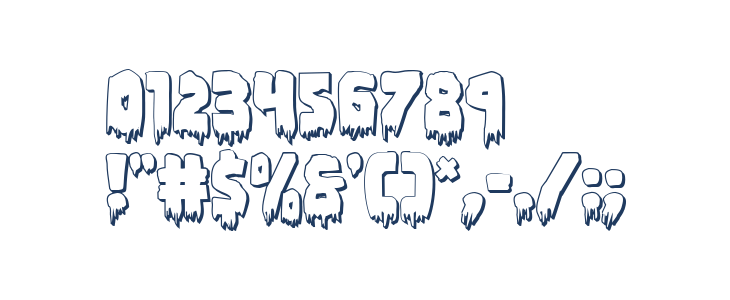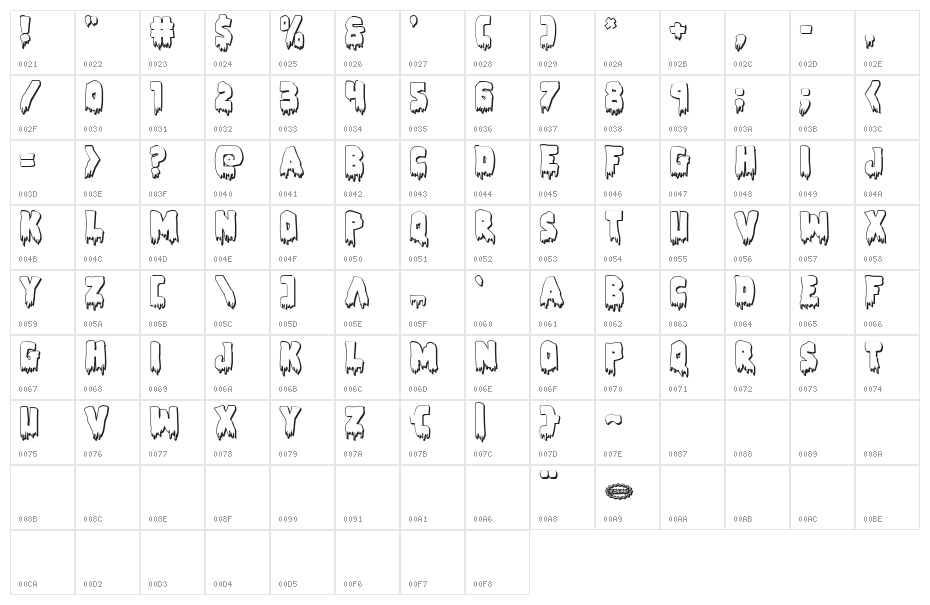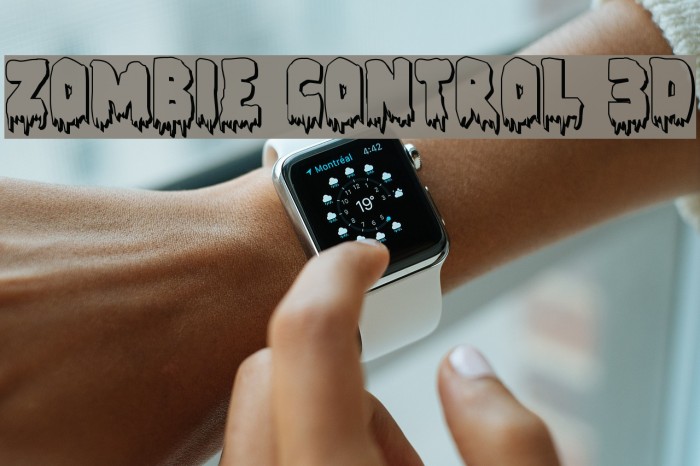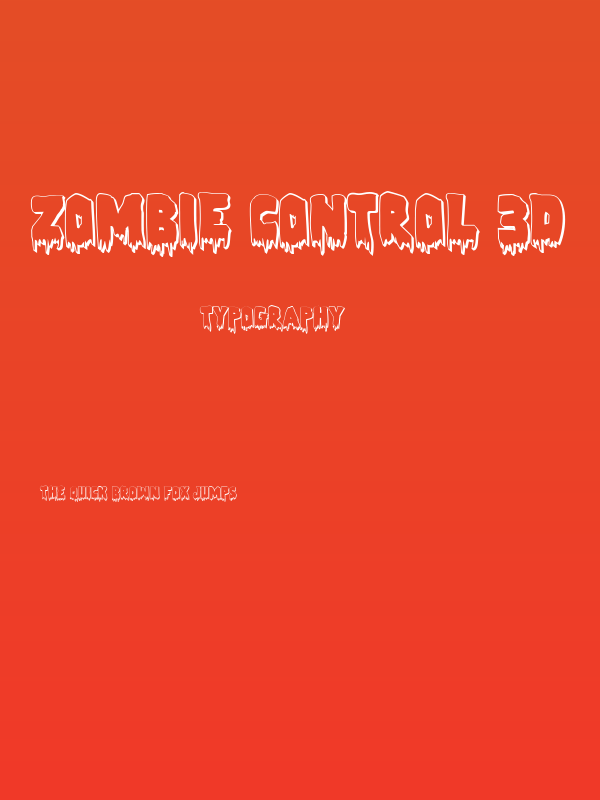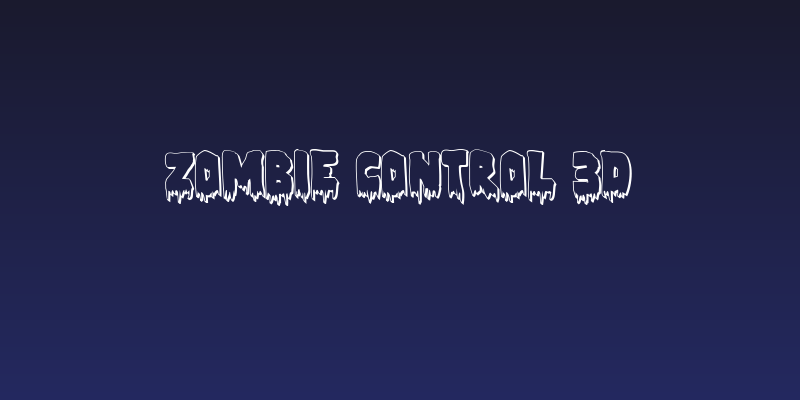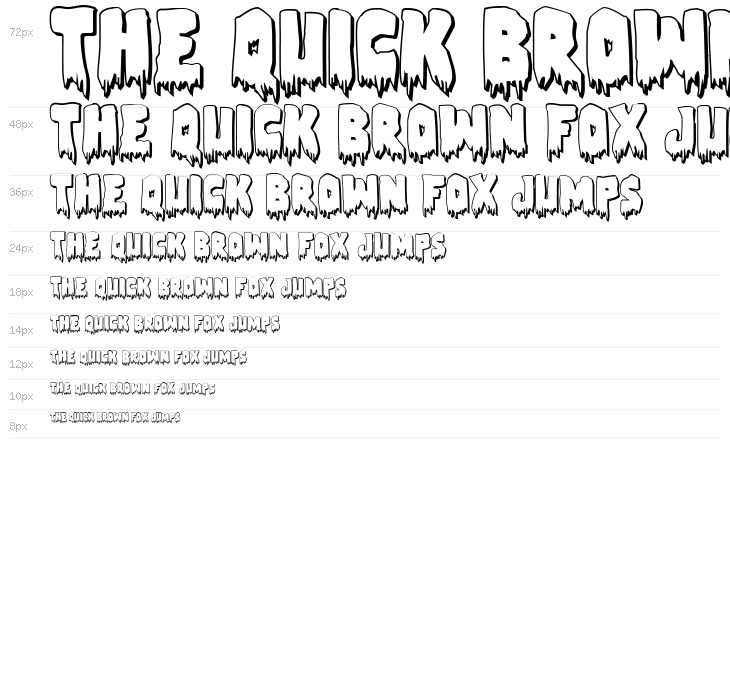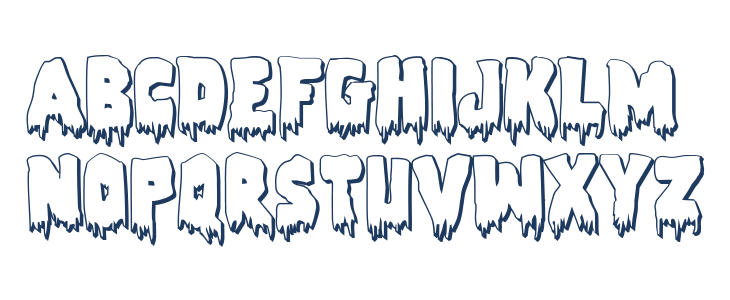
Zombie Control 3D Font
Zombie Control 3D Description
This font features a distinctive, horror-themed design with letters that appear to be dripping or melting, evoking a spooky, eerie atmosphere. The characters are bold and have a three-dimensional effect, enhancing their dramatic and eye-catching appearance. The uppercase and lowercase letters maintain a consistent style, with jagged edges and irregular shapes that add to the unsettling aesthetic. Numbers and special characters follow the same theme, ensuring a cohesive look across all text elements. This font is perfect for projects that require a chilling, Halloween-inspired vibe.
| Proposed Projects | Ideal for Halloween posters, horror movie titles, haunted house flyers, and spooky-themed event invitations. |